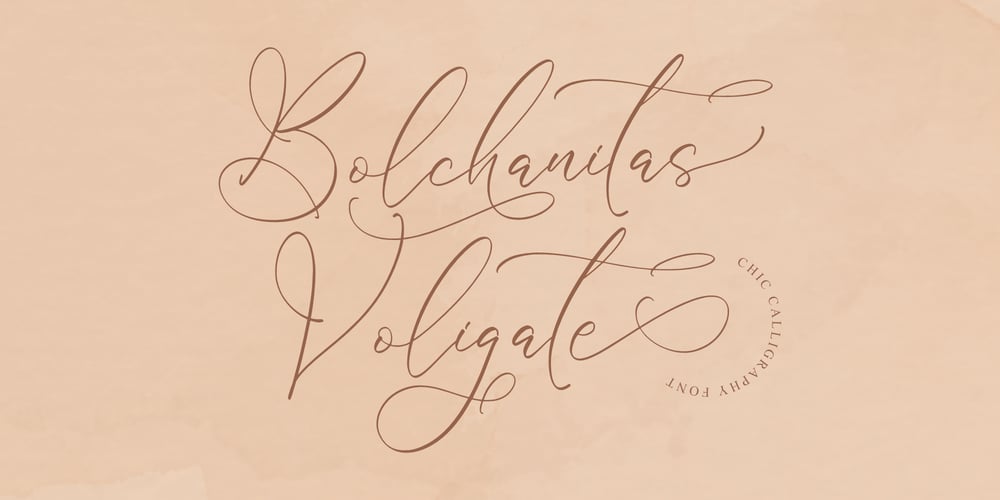
Bolchanitas Voligate Font Family was designed by Heru Utama Putra and published by Letterena Studios. Bolchanitas Voligate contains 2 styles and family package options. Bolchanitas Voligate is a stylish and incredibly elegant script font. It looks stunning on wedding invitations, thank you cards, quotes, greeting cards, logos, business cards and every other design which needs a handwritten touch.